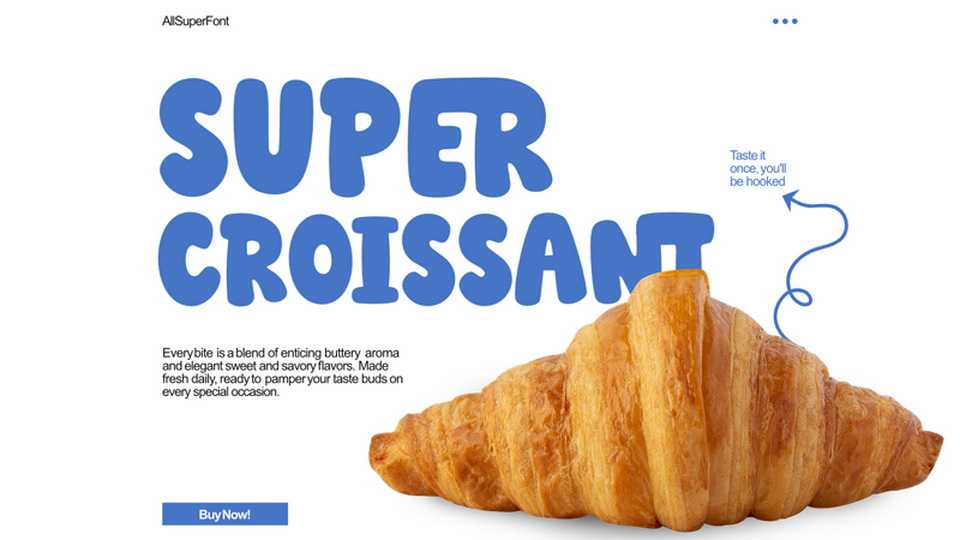
Download Super Croissant font, a bold, rounded display typeface with soft curves and a playful, bakery-inspired character. Its smooth shapes and generous proportions create a warm, friendly rhythm that instantly feels approachable and modern.